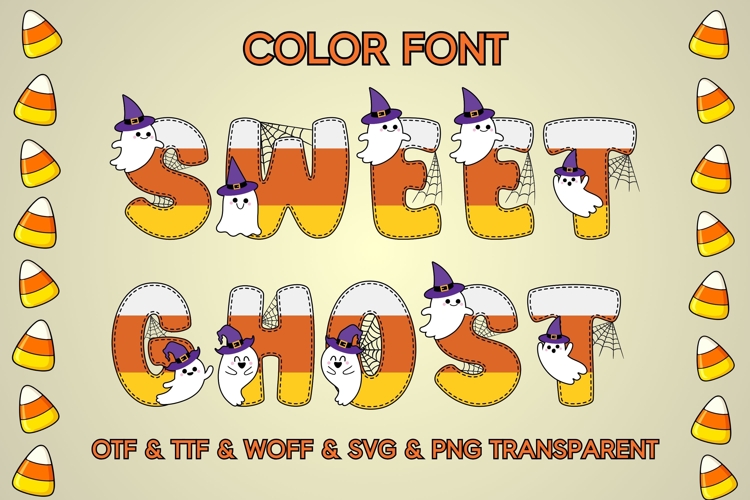
Introducing Sweet Ghost, a vivid and playful color font that brings a touch of enchantment to every Halloween-themed design. Its captivating character effortlessly melds with t-shirt designs, digital imprints, craft creations, decorative cards, and extensive projects.